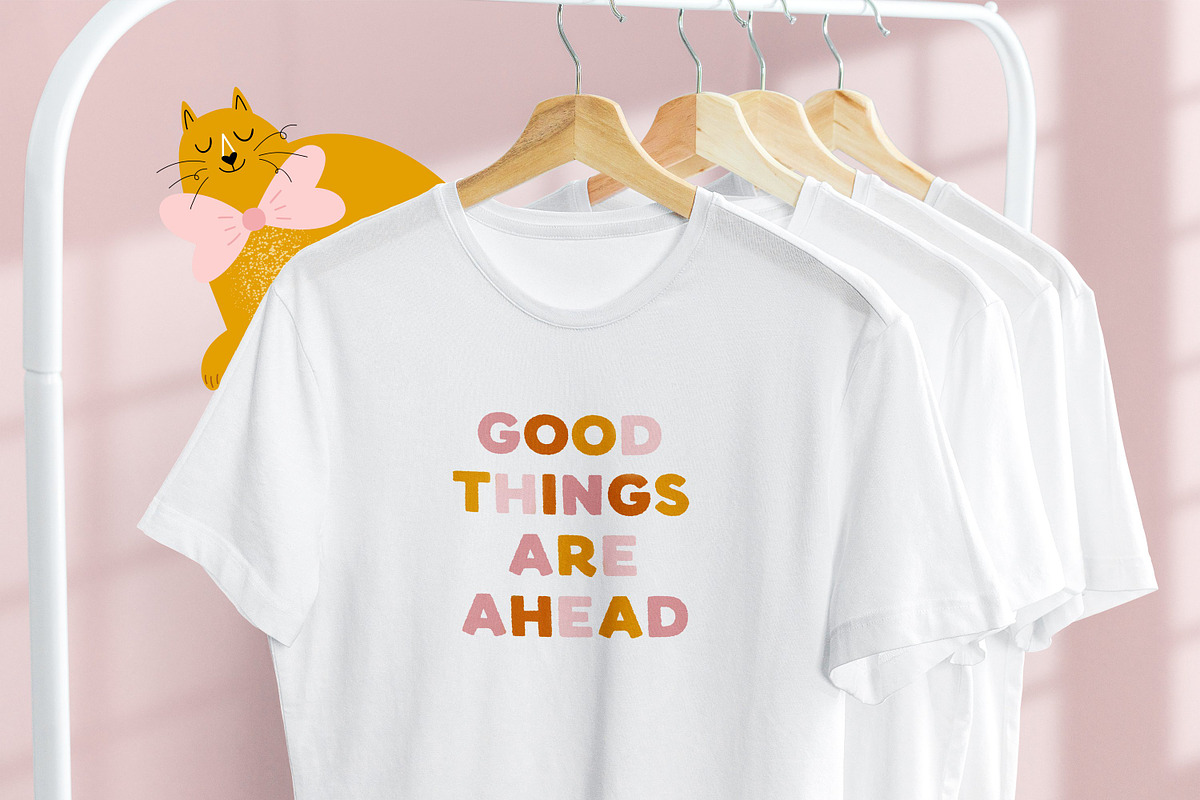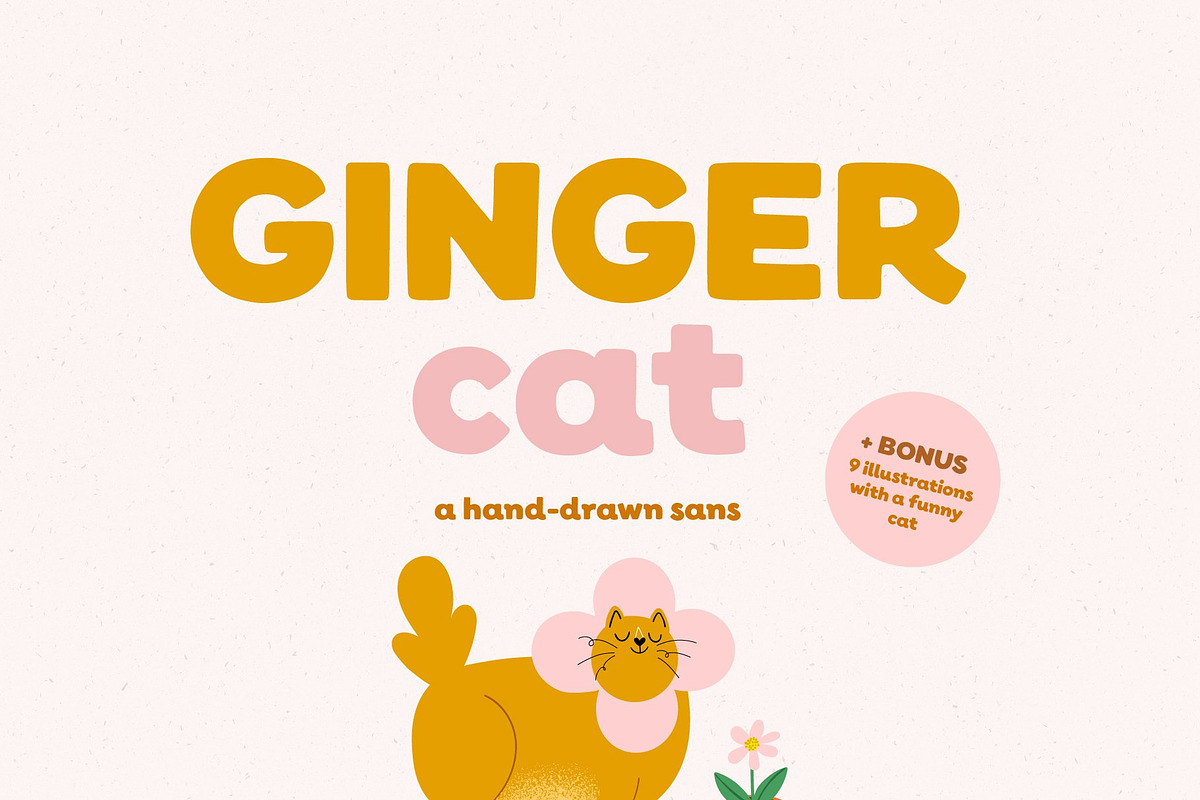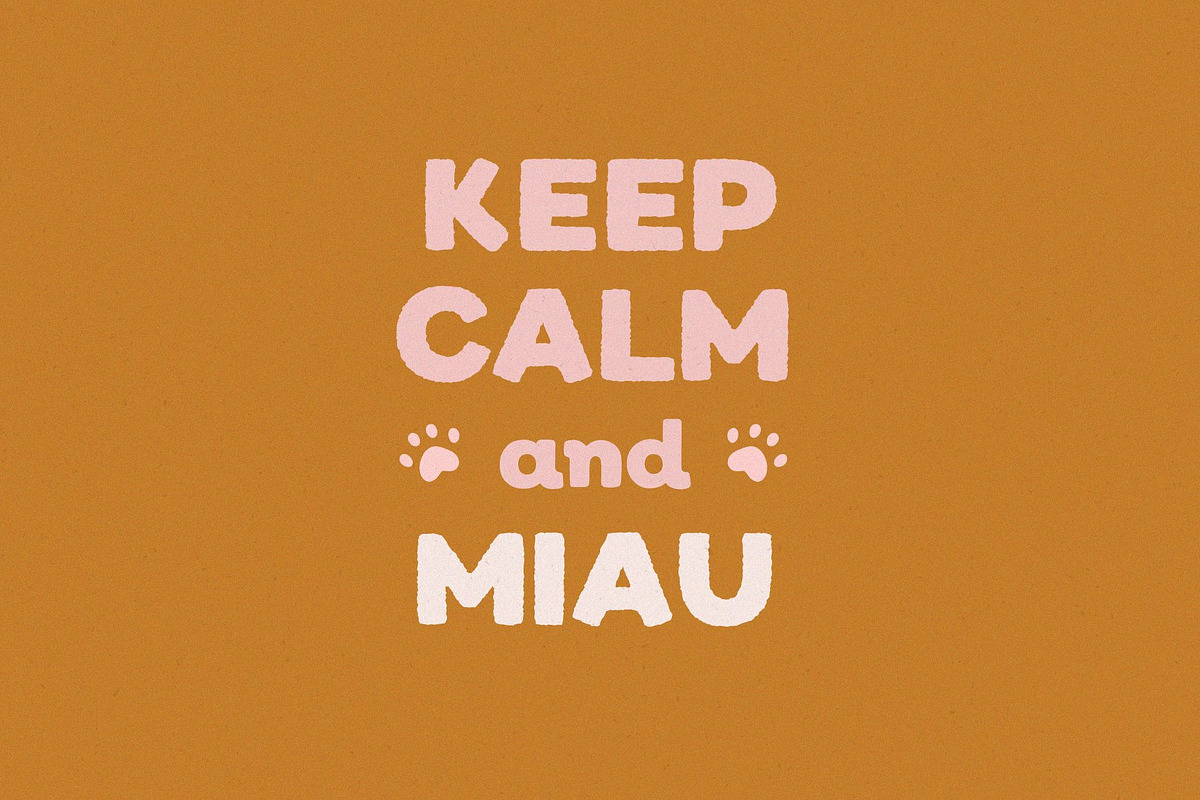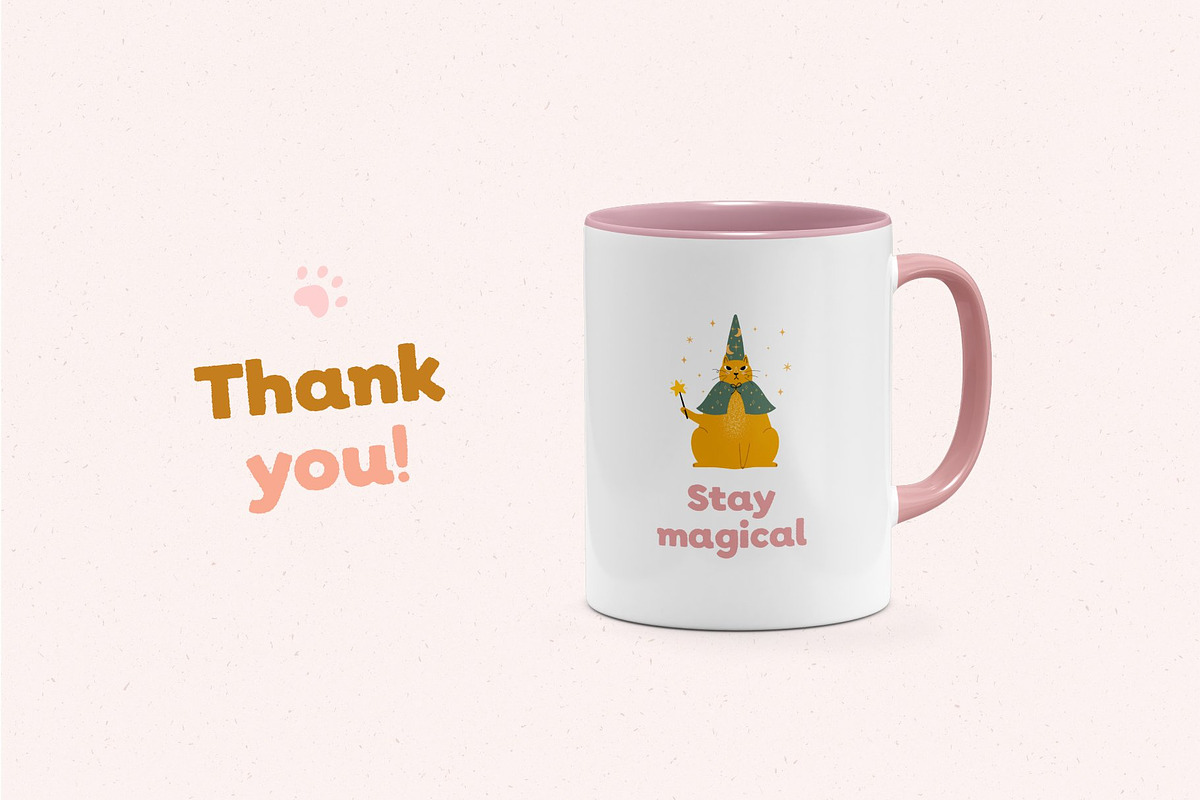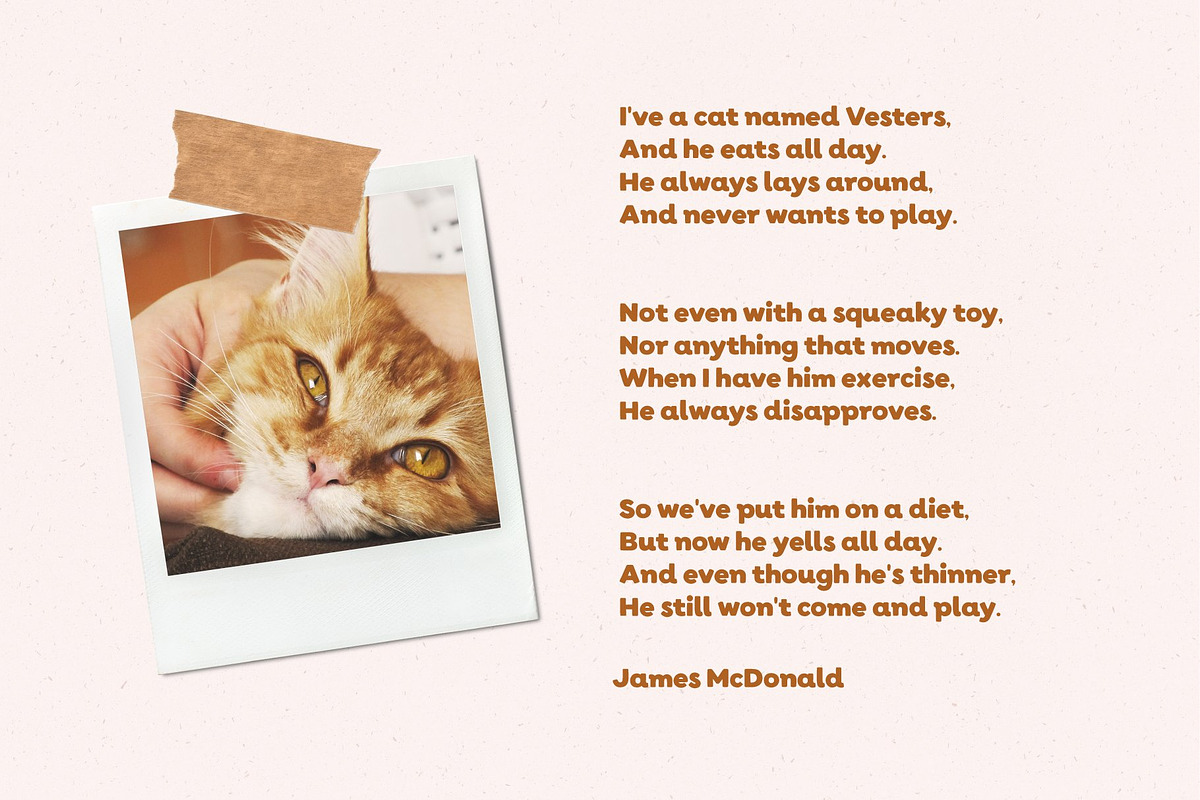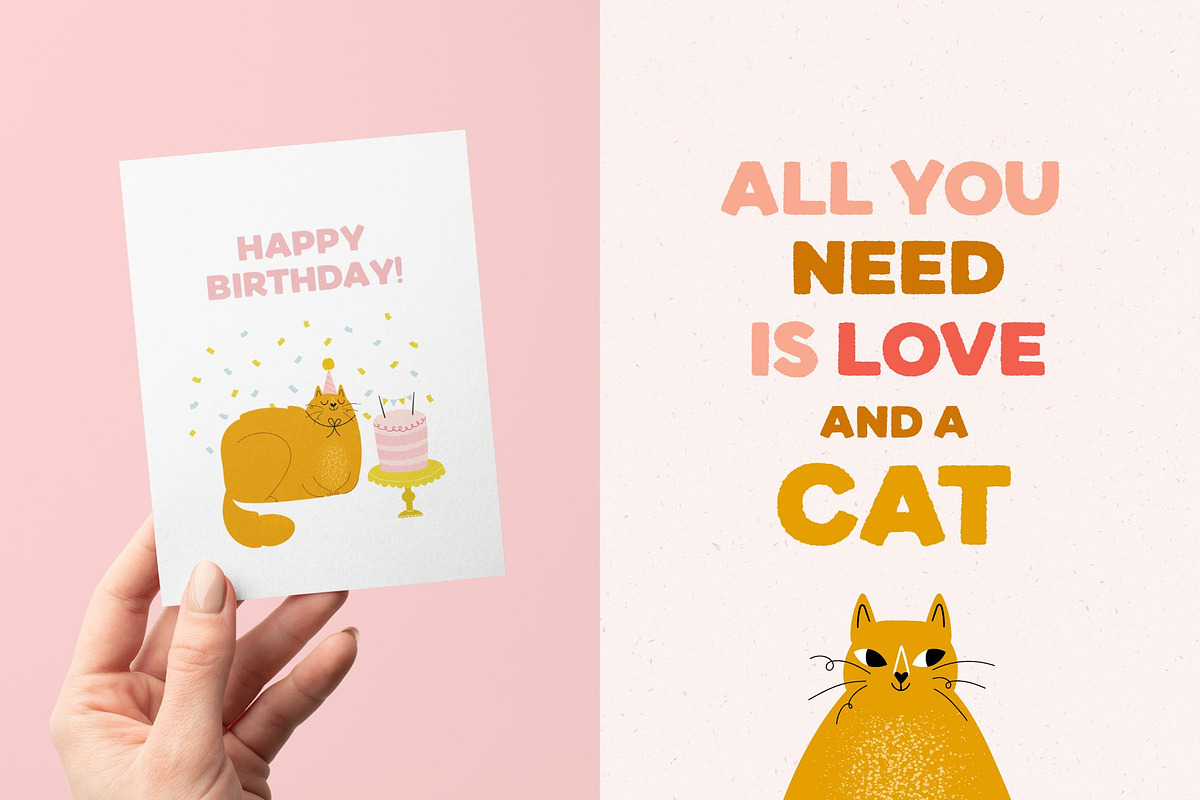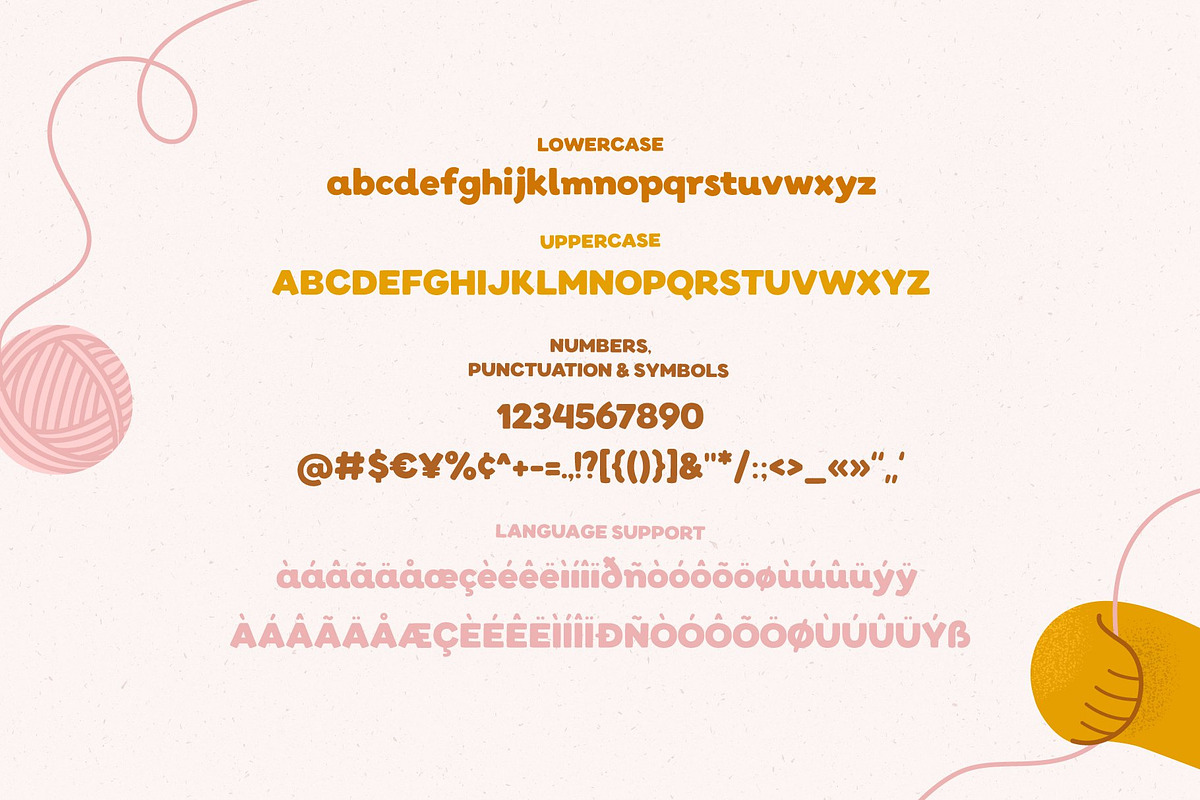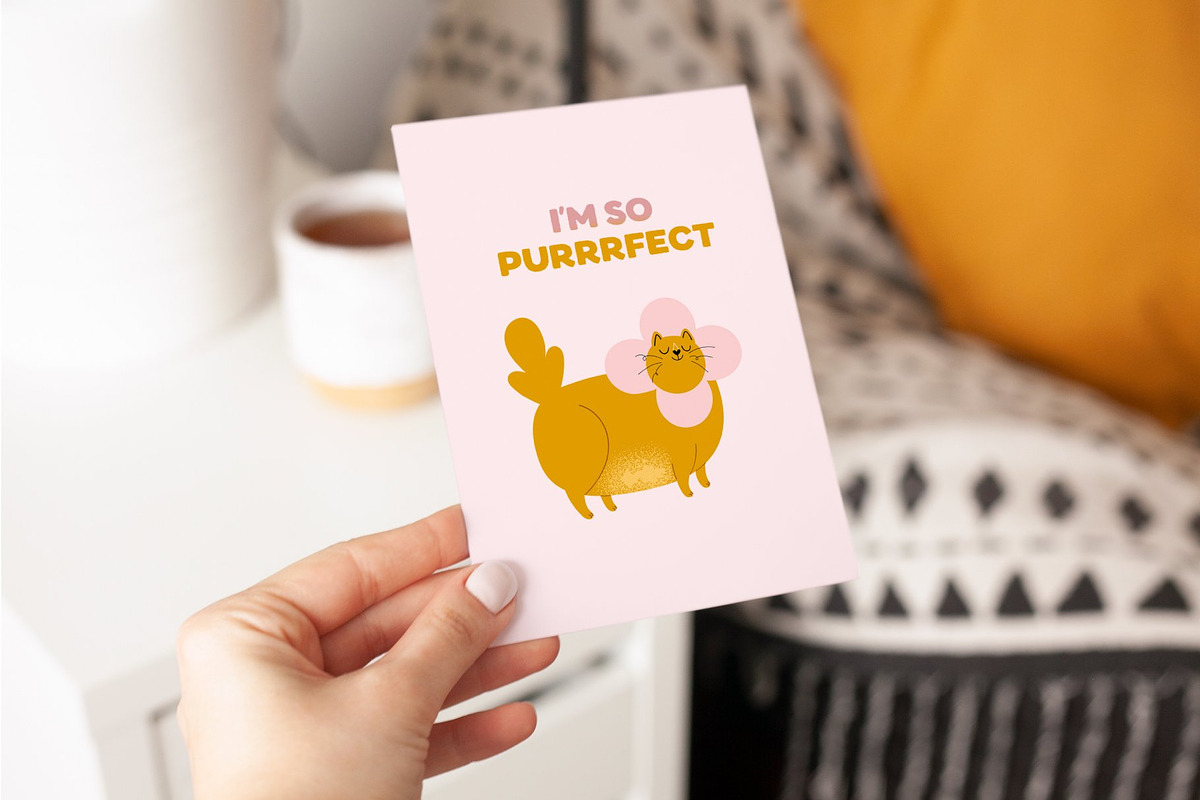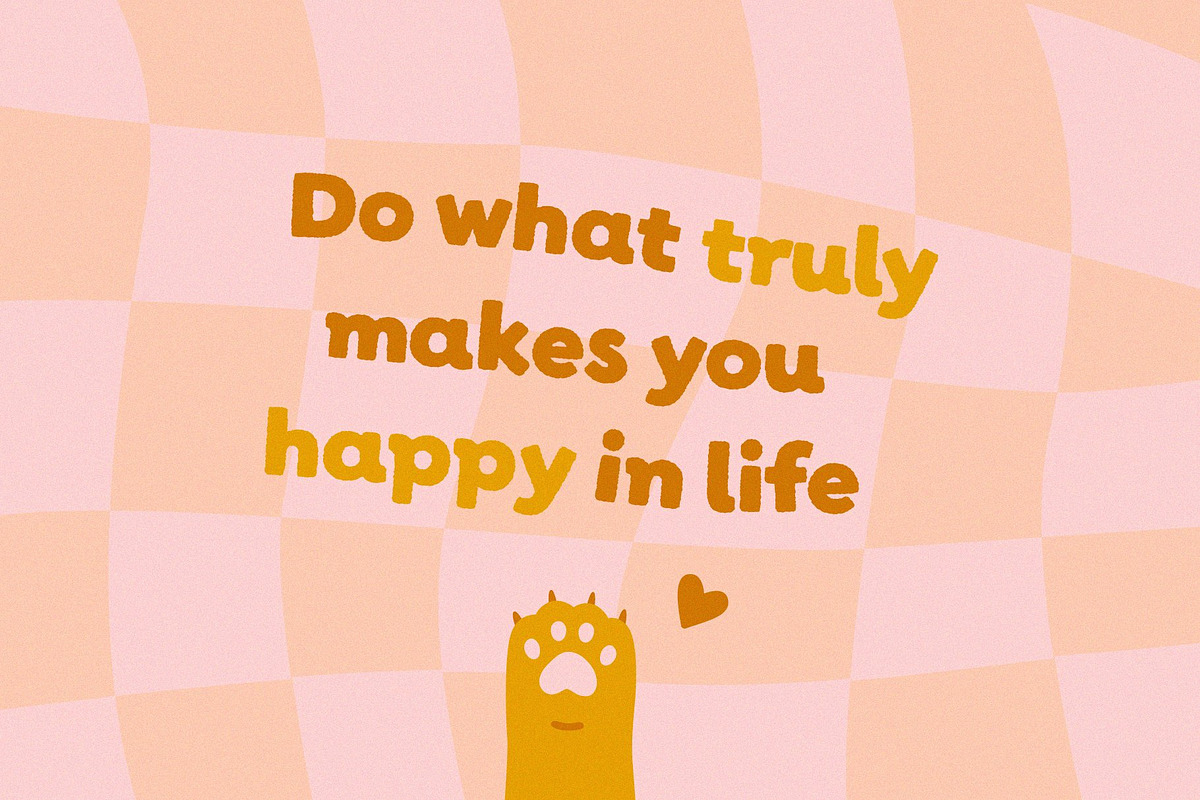
Ginger cat | Hand-drawn sans
I'm happy to present my Ginger cat set. A hand-drawn sans is a great tool to beautify your posters, stickers, books, quirky greeting cards and create playful branding design! The font has two styles: regular and rough. I also added 9 illustrations of a funny cat. Create your own unique design!